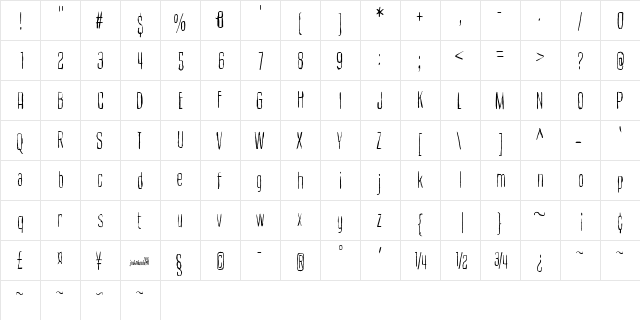
Cult of the toucan Regular
| Designer | junkohanhero |
Design Context for Cult of the toucan Typeface
Cult of the toucan takes a measured approach to typography — its balanced proportions and neutral character make it a reliable workhorse for both digital and print work.